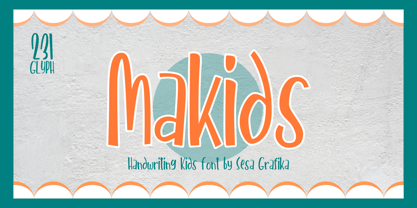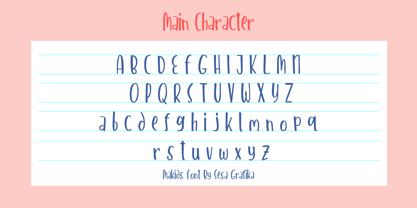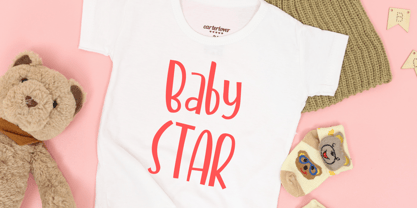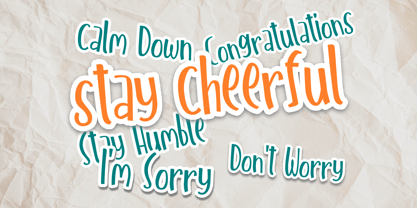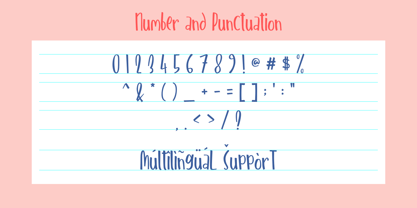
Makids
by Sesa Grafika
The Makids Font Family was designed by Wisesa Purba Giandar and published by Sesa Grafika. Makids contains 1 styles.
Makids – A Cheerful Handwriting Font for Kids By Sesa Grafika
Makids is a fun, friendly, and energetic handwriting font designed especially for kids-themed projects. With a playful bounce and a quirky charm, Makids is perfect for bringing joy and creativity to your designs.
Whether you’re working on children’s books, posters, flashcards, birthday invitations, or classroom materials, Makids brings a handcrafted, youthful vibe that’s both readable and full of character.
231 Glyphs – Includes full uppercase and lowercase letters, numbers, punctuation, and symbols
Playful Handwritten Style – Perfect for kids and educational designs
Easy to Read – Designed with clean, tall letterforms that stand out
Multilingual Support – Covers basic Latin characters for international use
Children’s books & stories
Educational worksheets
Classroom decor
Greeting cards & party invites
Branding for kids’ products
Positive quotes & motivational designs
Bring a smile to every design with Makids – the handwriting font that speaks to the hearts of little dreamers!